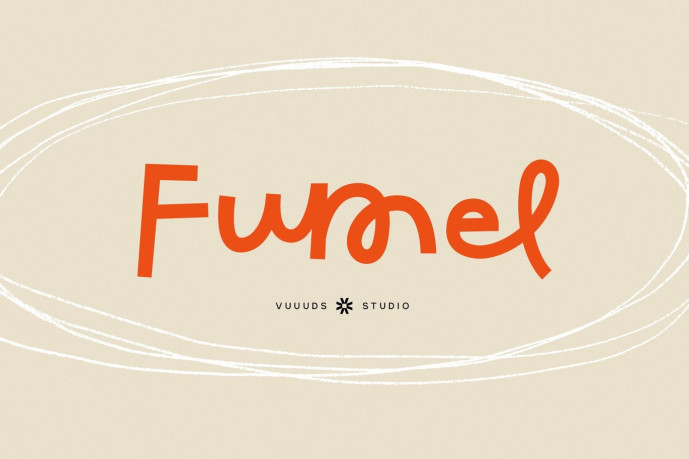
Fumel Font
Bring an effortless, human touch to your designs with Fumel! Blending relaxed casual handwriting with a rich set of unique ligatures, Fumel flows so naturally it looks genuinely hand-lettered. Perfect for warm branding, social media quotes, chic packaging, cozy cafe menus, and personal logos that need a splash of authentic charm.